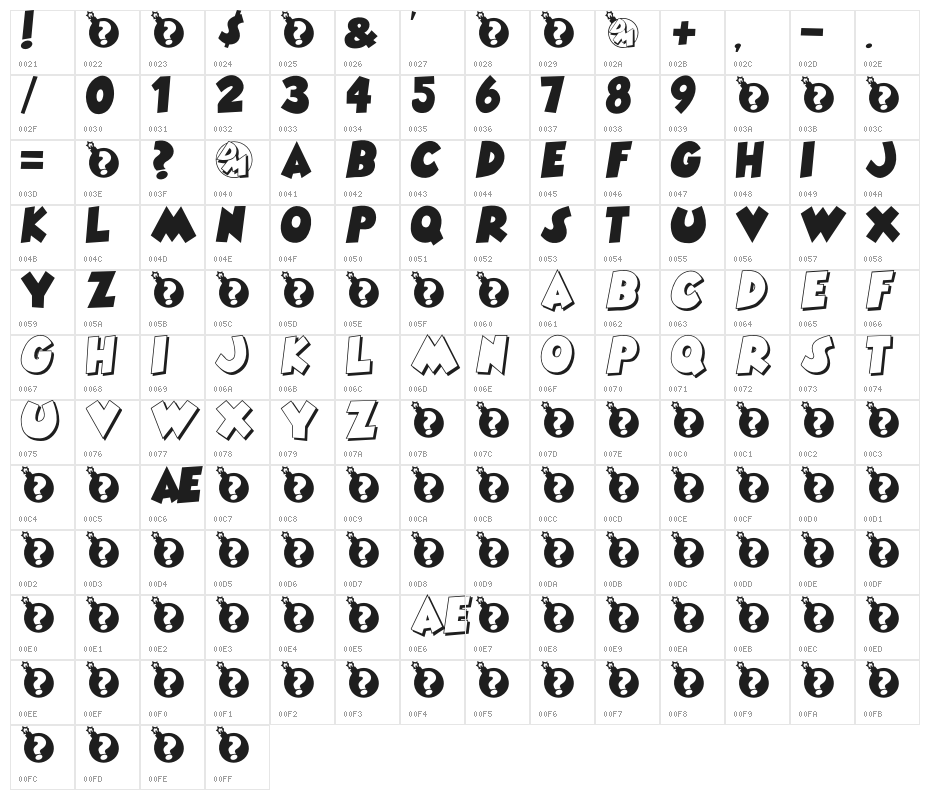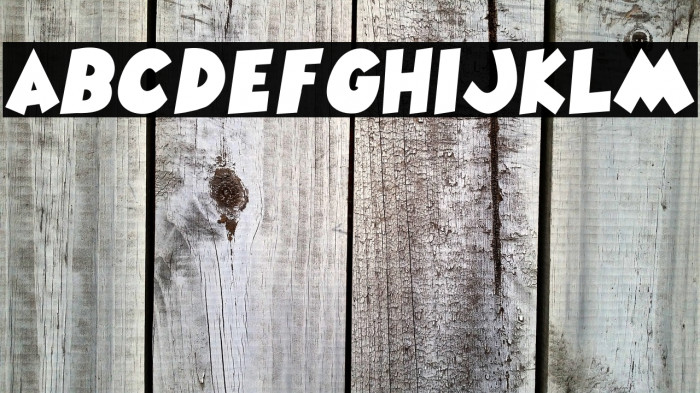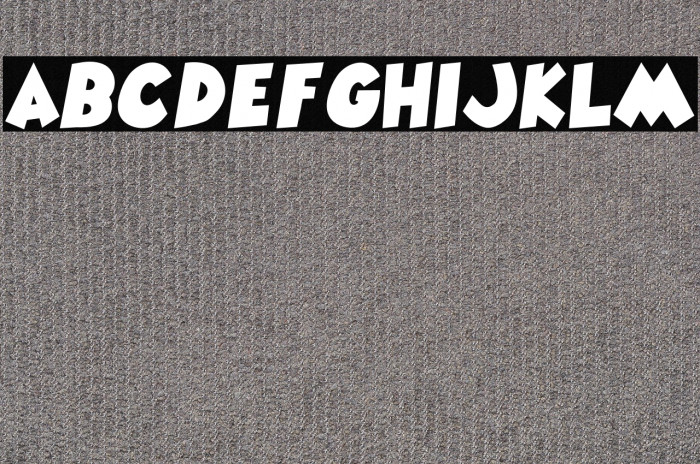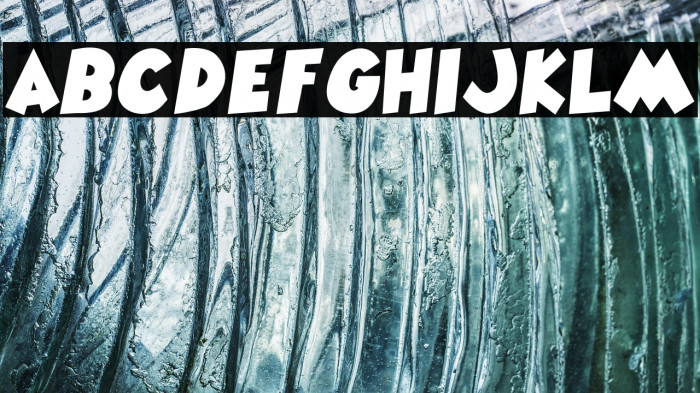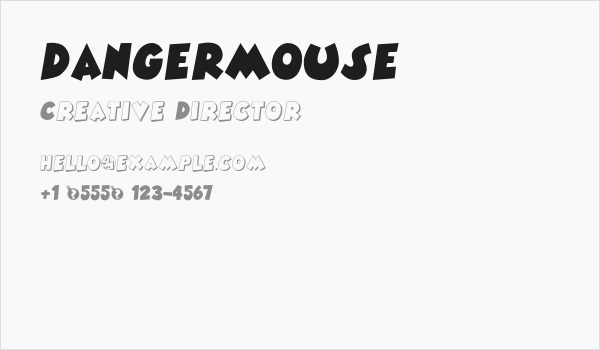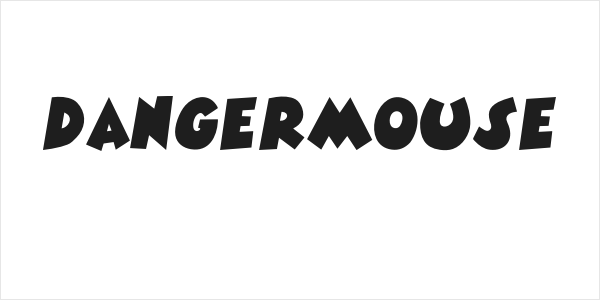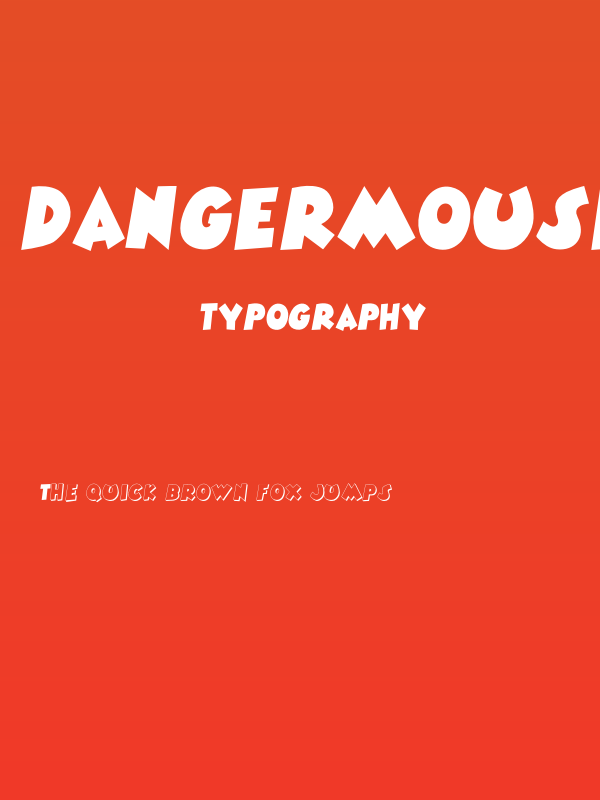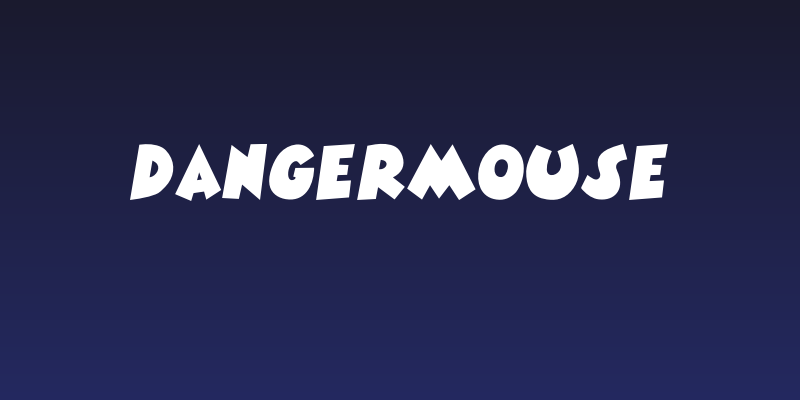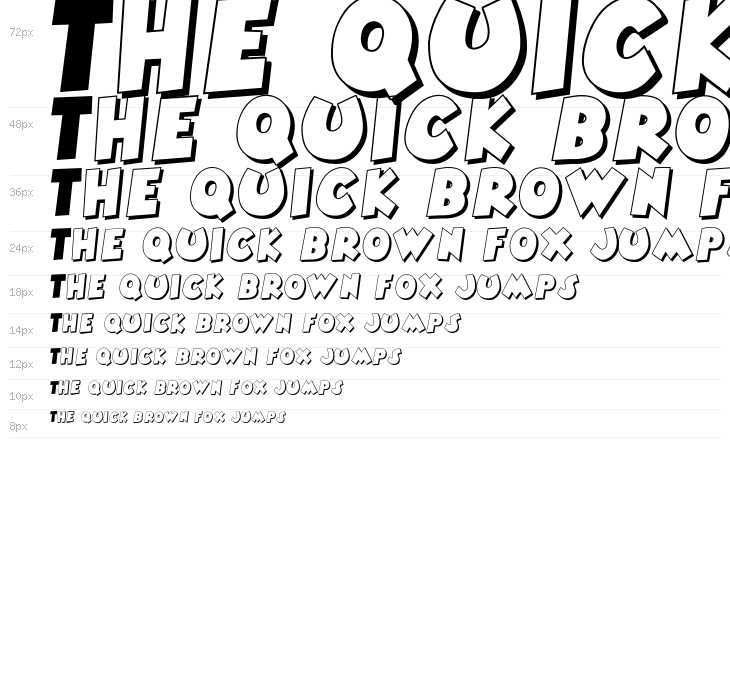
DANGERMOUSE Font
DANGERMOUSE Description
This font features a bold and playful design, characterized by its thick, angular strokes and dynamic, energetic shapes. The uppercase letters are particularly striking, with a strong presence that commands attention. The lowercase letters maintain the same boldness, ensuring consistency throughout. Numbers and special characters are equally bold, with some incorporating unique design elements like bombs and question marks. The font's style is reminiscent of comic book lettering, making it ideal for projects that require a fun and engaging aesthetic.
| Overall Style | Playful, Comic |
| Proposed Projects | Perfect for comic books, children's books, playful branding, and eye-catching posters. |